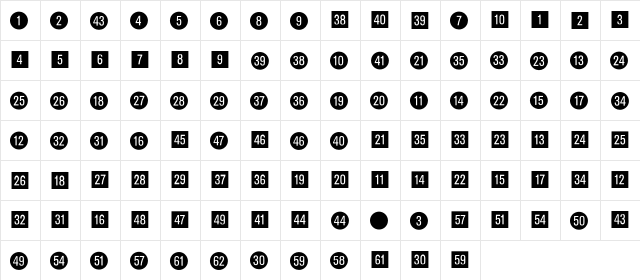
Katalogziffern Negativ BQ Regular
Design Context for Katalogziffern Negativ BQ Typeface
Katalogziffern Negativ BQ takes a measured approach to typography — its balanced proportions and neutral character make it a reliable workhorse for both digital and print work.